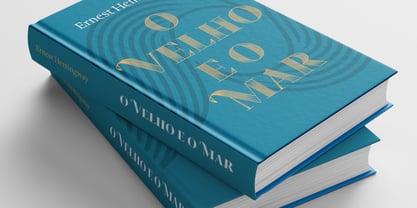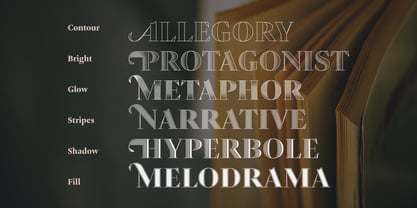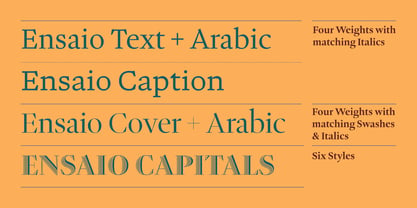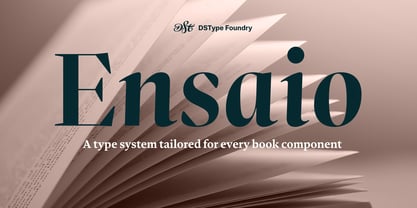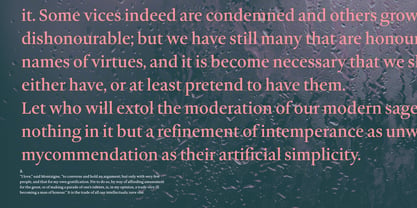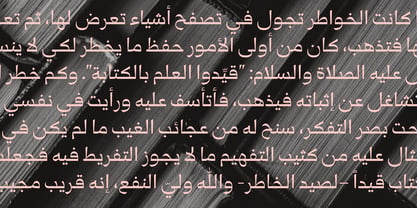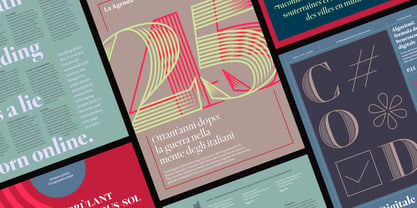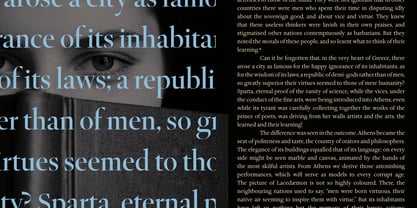
Ensaio
The Ensaio Font Family was designed by Dino dos Santos and published by DSType. Ensaio contains 38 styles and family package options. More about this family
Ensaio is a distinctive and versatile typeface crafted to elevate the aesthetics and functionality of book design. Breaking away from the conventions of a single-purpose typeface, Ensaio is thoughtfully divided into four specialized variations: Text, Cover, Caption, and Capitals. Each variant is meticulously designed to excel in its context, offering a unique visual performance. Designed for immersive reading, the Text variant balances medium contrast and near-upright italics. The Cover variant boasts high contrast and striking swashes. Its refined design commands attention in larger sizes, perfect for book covers and headlines. Ensaio Caption is workhorse for small sizes, featuring low-contrast serifs and sturdy shapes, ensuring legibility in footnotes, captions, and other intricate typographic details. The Capitals variant introduces an air of sophistication and grandeur, making it an excellent choice for chapter headings, drop caps, and ornamental typographic elements. Each Ensaio variant complements the others, creating a cohesive typographic system that adapts seamlessly to the multifaceted demands of book design. Whether for elegant prose, detailed annotations, bold cover titles, or decorative elements, Ensaio offers a harmonious balance of form and function, enhancing every aspect of the reading experience.